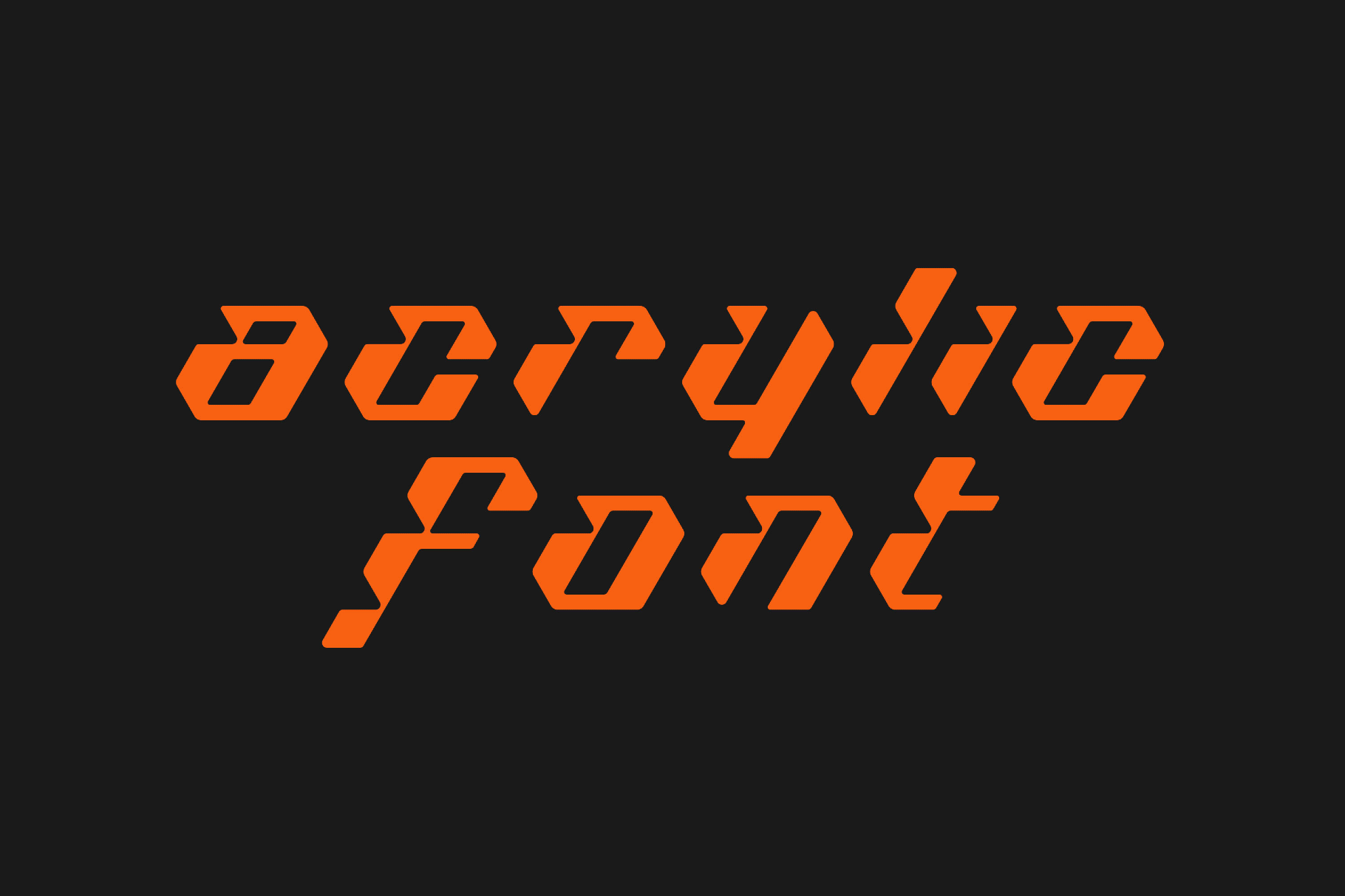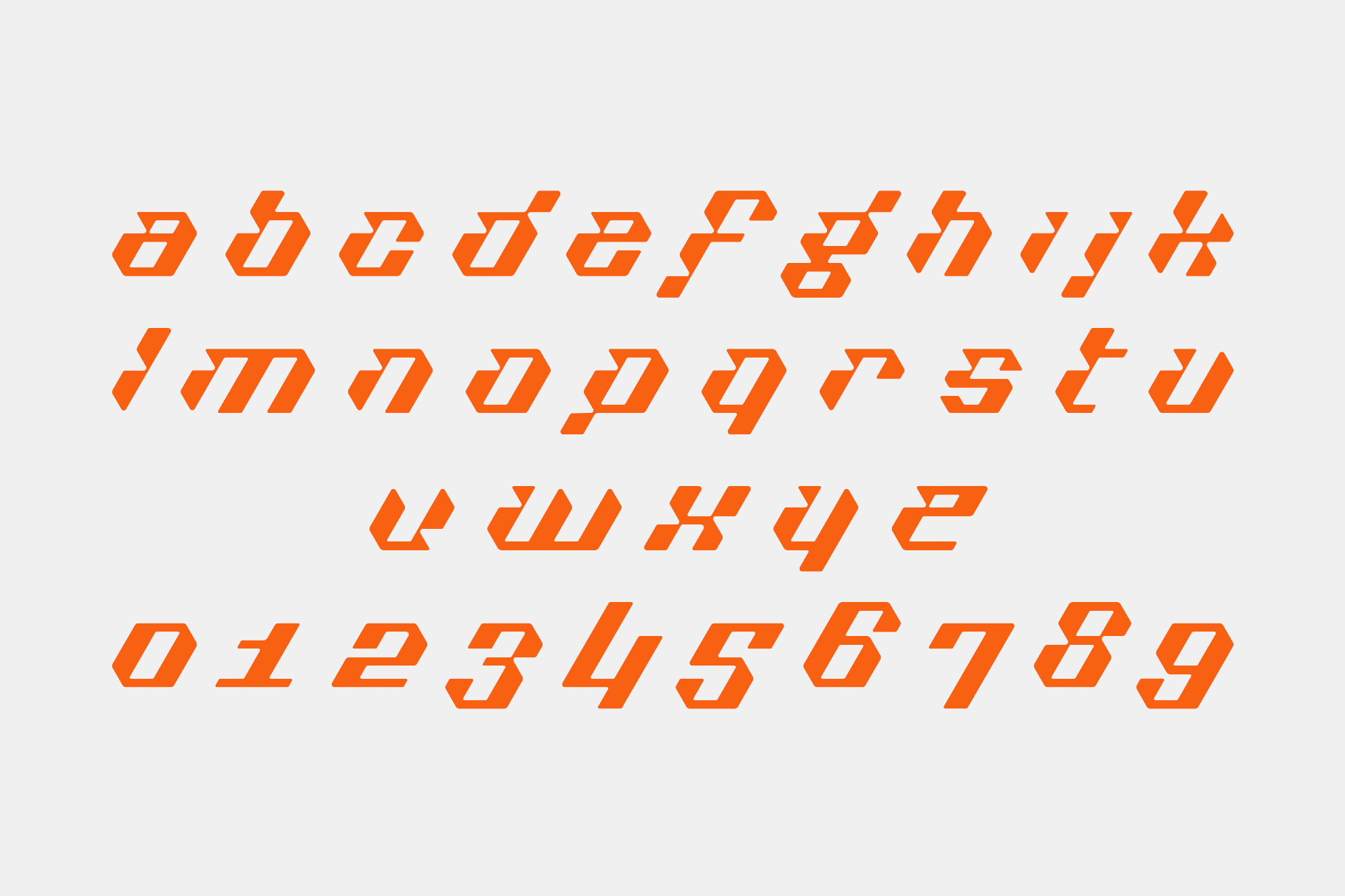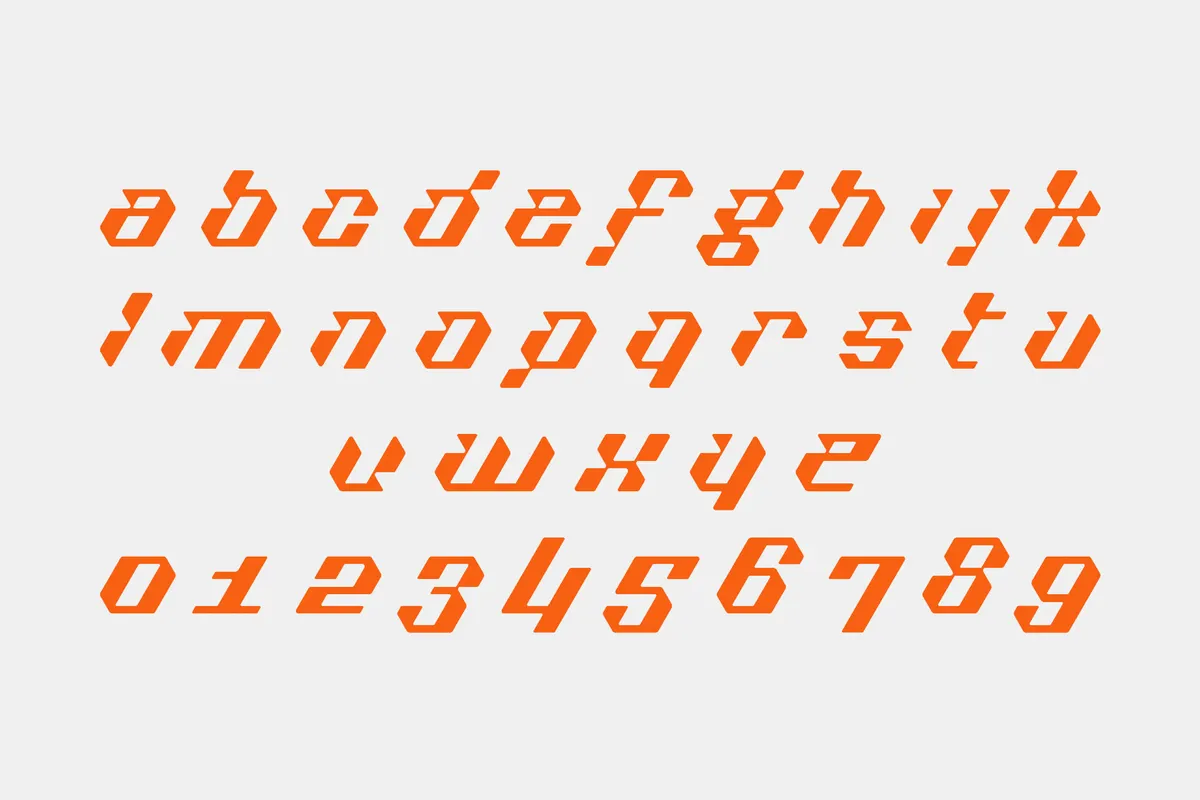
Acrylic Font
Acrylic
Acrylic looks built from the visual language of technical drawing: axonometric grids, precision schematics, and old digital displays. The letterforms have an engineered quality shaped by seven-segment logic, so the font comes measured and slightly electronic.
This space font is useful for projects that need a polished digital tone with some structural character behind it: tech identities, interface experiments, poster headlines, album sleeves, motion titles, packaging, and editorial layouts.